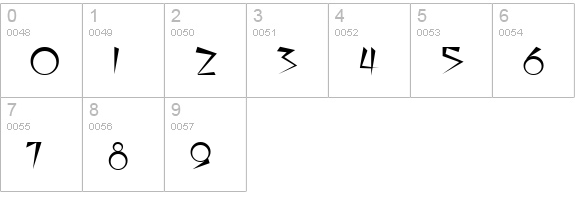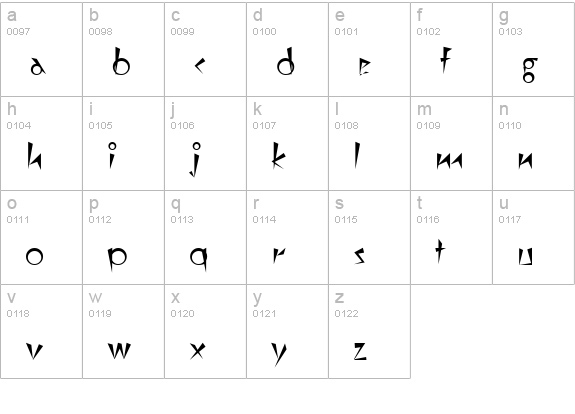
Demotte Regular Font Details
Demotte Regular is the standard, neutral variant in the Demotte typeface family \xE2\x80\x94 well suited to general body text, paragraphs, and standard typographic work.